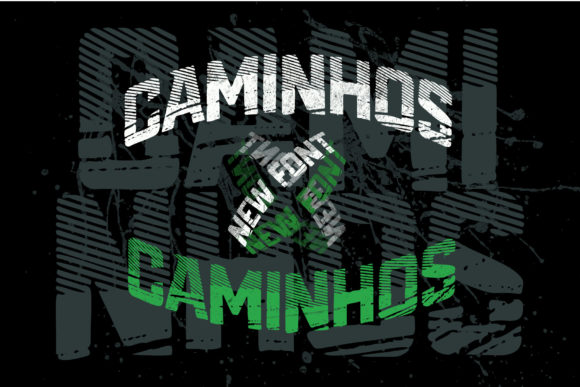
Introducing Caminhos Font, the ultimate display font that captures the essence of boldness with its thick, confident strokes. Step into a world of creativity with Caminhos, specially crafted for the digital realm. This font is the perfect companion for your most daring designs, bringing life to your words with its commanding presence.
Unlock the power of Caminhos and let your imagination soar. Its strong character adds a touch of unwavering determination to every project, whether it's a sport logo, a captivating poster, or a stunning social media graphic. Caminhos isn't just a font; it's a statement, a reflection of your bold personality.
With Caminhos, you'll discover a font that takes your designs to new heights. Its unique and memorable letterforms leave a lasting impression, ensuring your message is heard loud and clear. Whether you're a seasoned designer or just starting out, Caminhos is the perfect tool to elevate your work and make a lasting impact.
As part of the VTKS Design collection, Caminhos embodies the spirit of creativity and innovation. Let your imagination run wild as you explore the endless possibilities that await you with this captivating font. Embrace the power of Caminhos and unleash your inner artist.